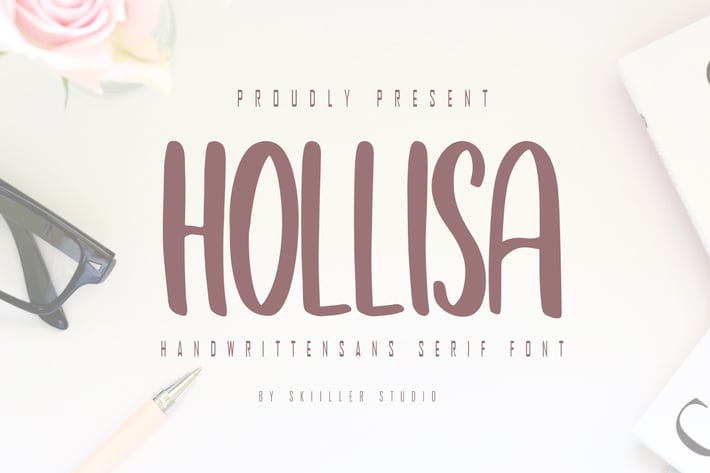
Hollisa - Handwritten Sans Serif Font
Hollisa sans serif font. It has a elegant, classy look and modern. It’s a great font for fashion, projects, signature, logo, branding, social media.